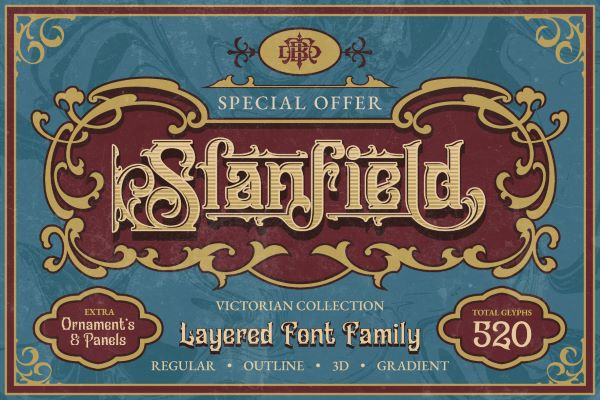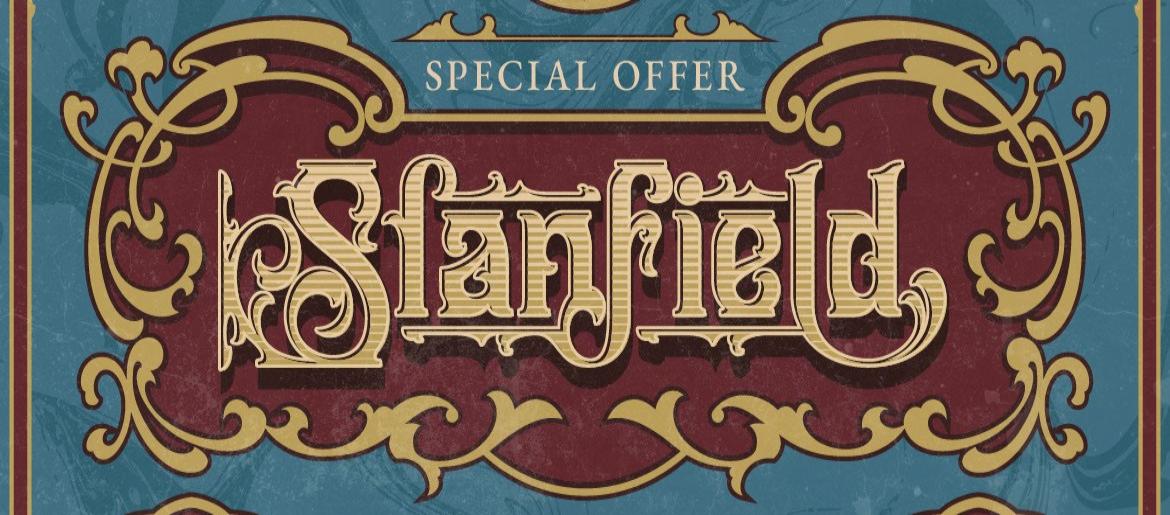
Slanfield Font
Slanfield is a Victorian-inspired layered display typeface designed by Eric Burntilldead, a designer based in Denpasar, Indonesia, and published in March 2026. Built as a multi-style family with Regular, Outline, 3D, and Gradient layers designed to be stacked for dimensional effects, it also includes smart alternates, stylistic swashes, ornaments, and decorative panels — a comprehensive toolkit for vintage signage, high-end branding, ornate packaging, and logotype work. Find it alongside other distinguished free fonts in our curated collection of typefaces from independent designers around the world.